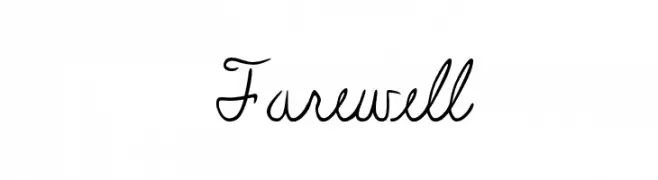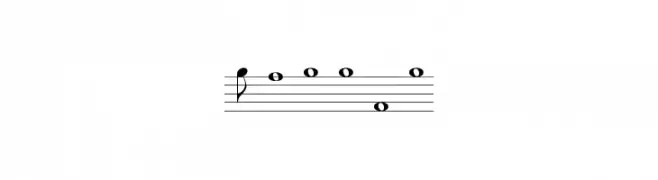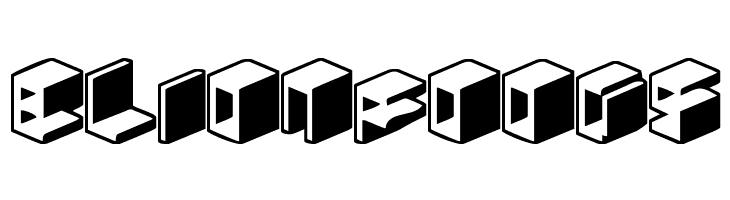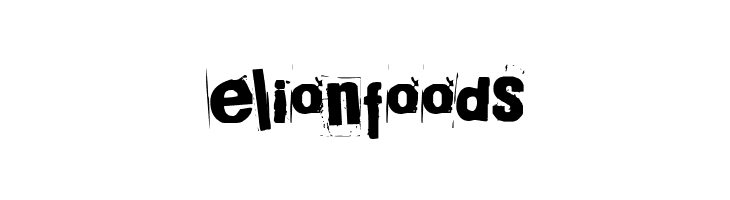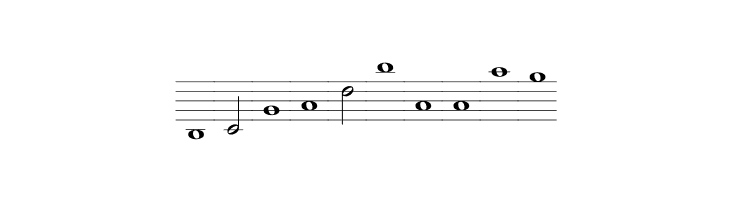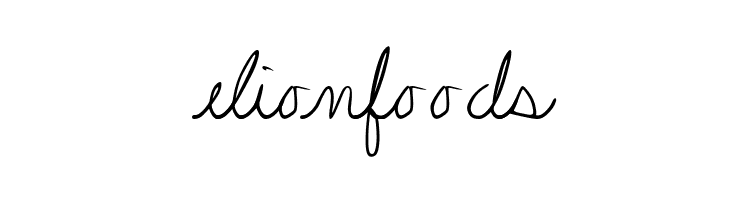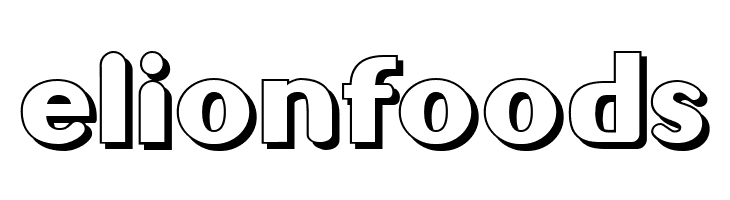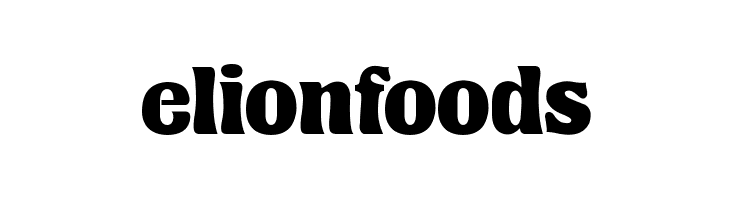
A bold, dynamic font with sharp, angular strokes and a slanted, energetic style.
A bold, Art Deco-inspired font with geometric shapes and sharp angles.
A bold, edgy, hand-drawn decorative font with a graffiti-like style.
A bold, 3D block-style font with a geometric and modern appearance.
A bold, distressed font with a grungy, urban style.
A futuristic, dotted font with a digital and modern aesthetic.
Traditional serif font with clear, readable forms.
A cursive, handwritten-style font with elegant, flowing characters.
A bold, outlined font with a modern and playful style.
A bold, playful font with a whimsical, hand-drawn style.